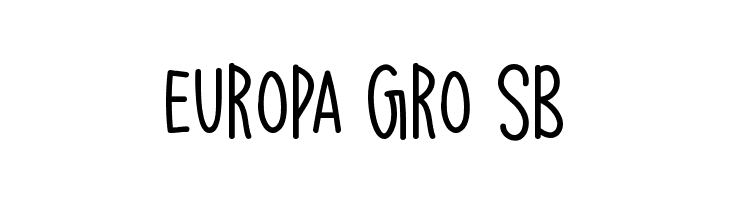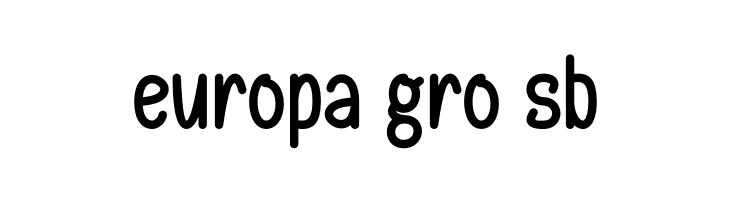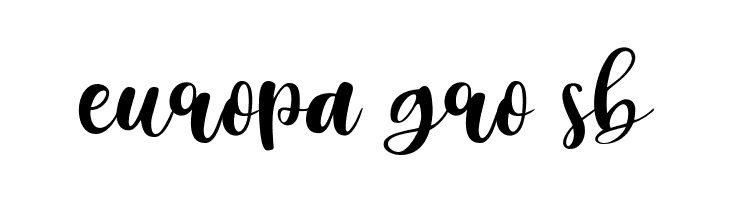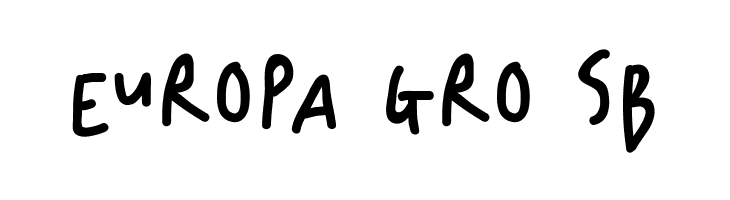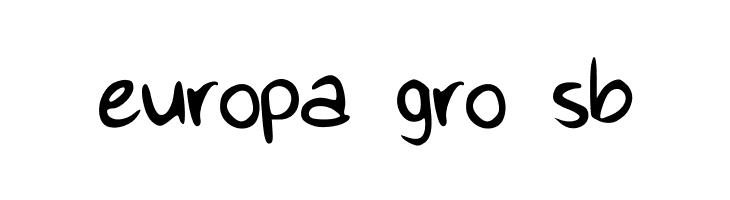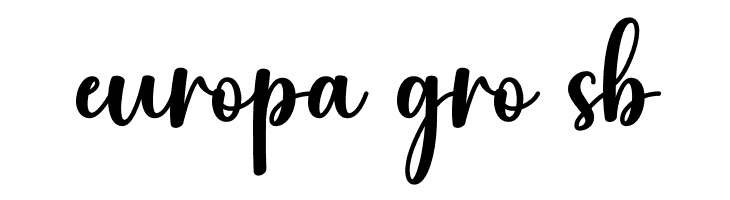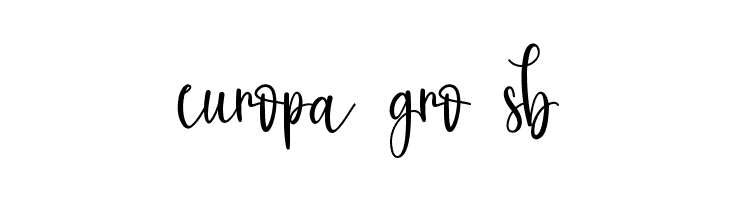
( Fonts by Md Shohail Bhuian )
A playful, handwritten font with tall, narrow letters and a casual style.
( Fonts by Gilang Ternadho )
A playful, rounded font with a friendly and whimsical style.
A lively, cursive font with bold, flowing strokes and a playful elegance.
( Fonts by Tokokoo Studio )
( Fonts by Danar Nugroho )
A playful, handwritten script font with heart accents and smooth flow.
( Fonts by Kong Font )
A playful dinosaur-themed font with whimsical elements for a fun visual impact.
( Fonts by scratchones )
A lively, expressive handwritten font with flowing, interconnected letterforms.
( Fonts by Md Shohail Bhuian )
Playful and rounded sans-serif font.
( Fonts by Nabila )
Playful handwritten font with a casual style.